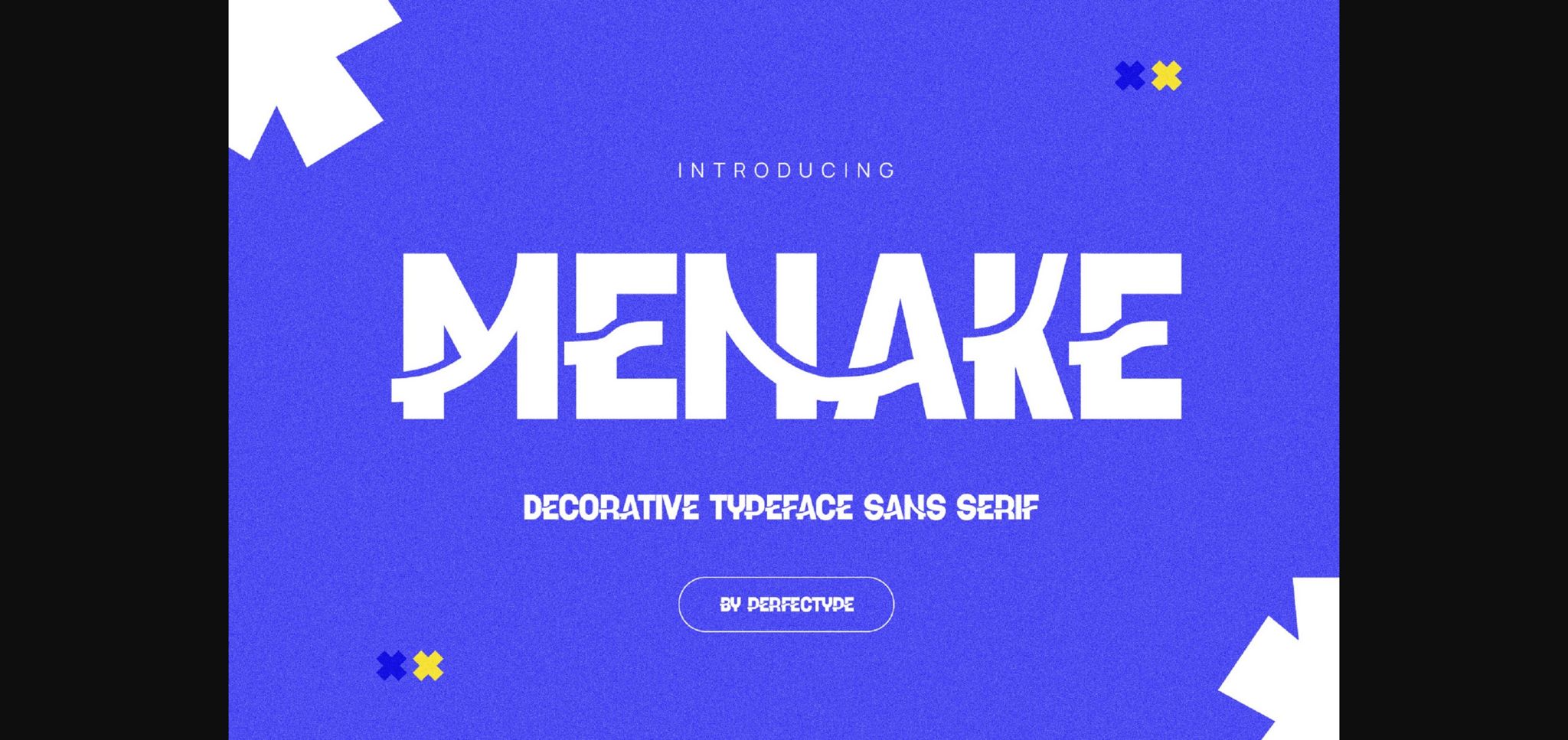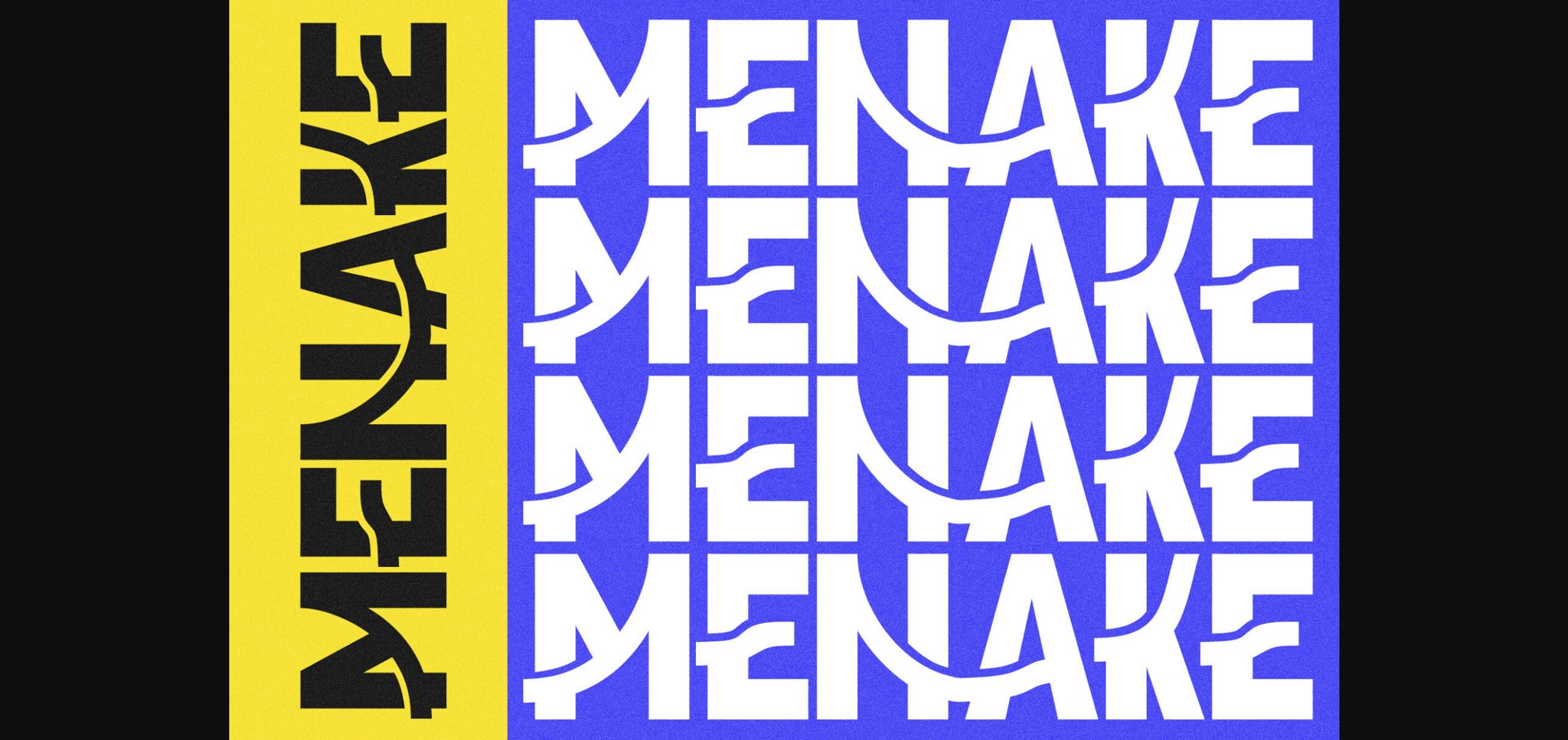
About Manake Font
Manake font is a sophisticated sans-serif typeface with an intriguing style. Its elegant yet unconventional design adds a touch of modern flair to your typography. Ideal for creating standout logos, headlines, and branding materials, Manake is your gateway to a world of unique and eye-catching design possibilities.